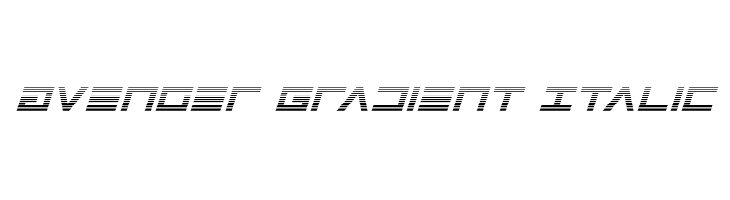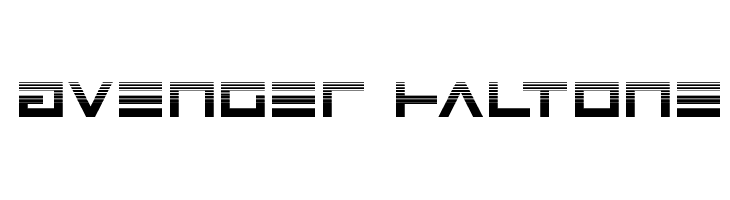
A sleek, modern, bold italic font with consistent stroke thickness.
A sleek, modern italic font with clean lines and balanced proportions.
A decorative and artistic font with intricate, abstract shapes.
A tall, narrow, and modern font with a sleek, elegant appearance.
A bold, decorative font with intricate circular patterns.
A bold, modern sans-serif font with geometric lines and strong presence.
A bold, expressive script font with dynamic curves and high contrast.
A modern, geometric font with clean lines and a minimalist style.
An ornate, medieval-style font with bold, decorative elements and intricate serifs.
A playful, rounded font with geometric and organic shapes, offering a friendly and modern look.
An elegant script font with flowing, cursive letters and graceful curves.
An elegant, flowing script font with connected cursive letters and delicate flourishes.
A stylish and flowing script font with elegant curves and bold strokes.
A stylish and flowing script font with elegant, fluid letterforms.
A bold, playful font with a hand-drawn, quirky style.
A bold and dynamic font with strong, impactful strokes and playful curves.
A dynamic and edgy font with sharp, angular strokes and a modern flair.
A sharp, angular, and artistic font with a calligraphic flair.
A bold, modern font with high contrast and calligraphic elements.
A bold, dynamic font with sharp, angular lines and a modern flair.
A bold, italicized font with a dynamic and expressive style.
A bold, italicized font with a dynamic, hand-drawn style.
A dynamic, italic font with medium contrast and a modern, expressive style.
A dynamic, italic font with sharp, angular strokes and high contrast.
A bold, italicized font with dynamic and expressive letterforms.
A bold, geometric sans-serif font with rounded edges and uniform width.
Bold, geometric font with characters in square boxes for a modern look.
A geometric, modular font with a digital, modern aesthetic.
A bold, geometric font with a futuristic and modern design.
A bold, playful, hand-drawn font with a whimsical and informal style.
A chaotic, splatter-inspired decorative font with irregular, jagged edges.
A bold, distressed font with a rough, textured appearance.